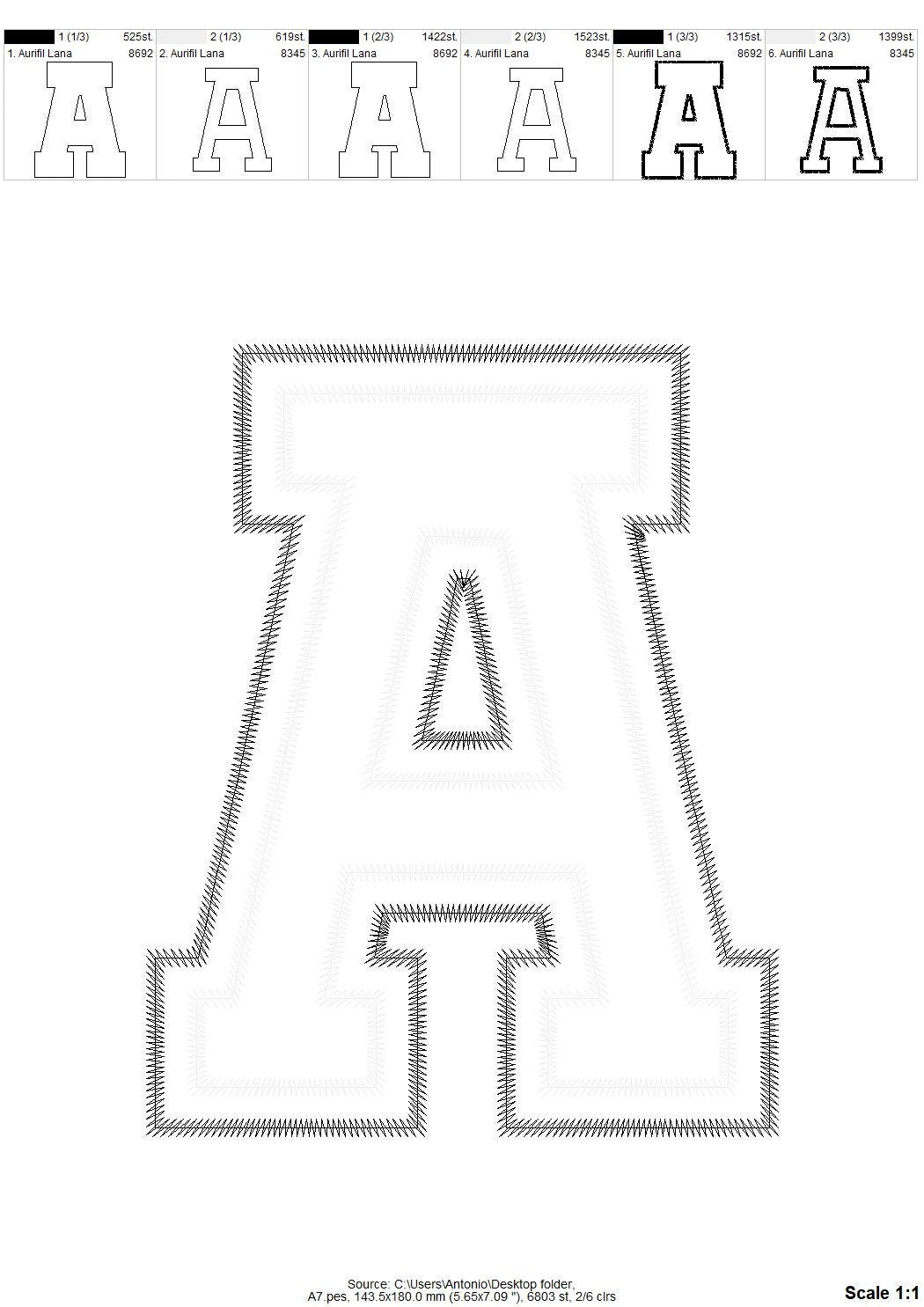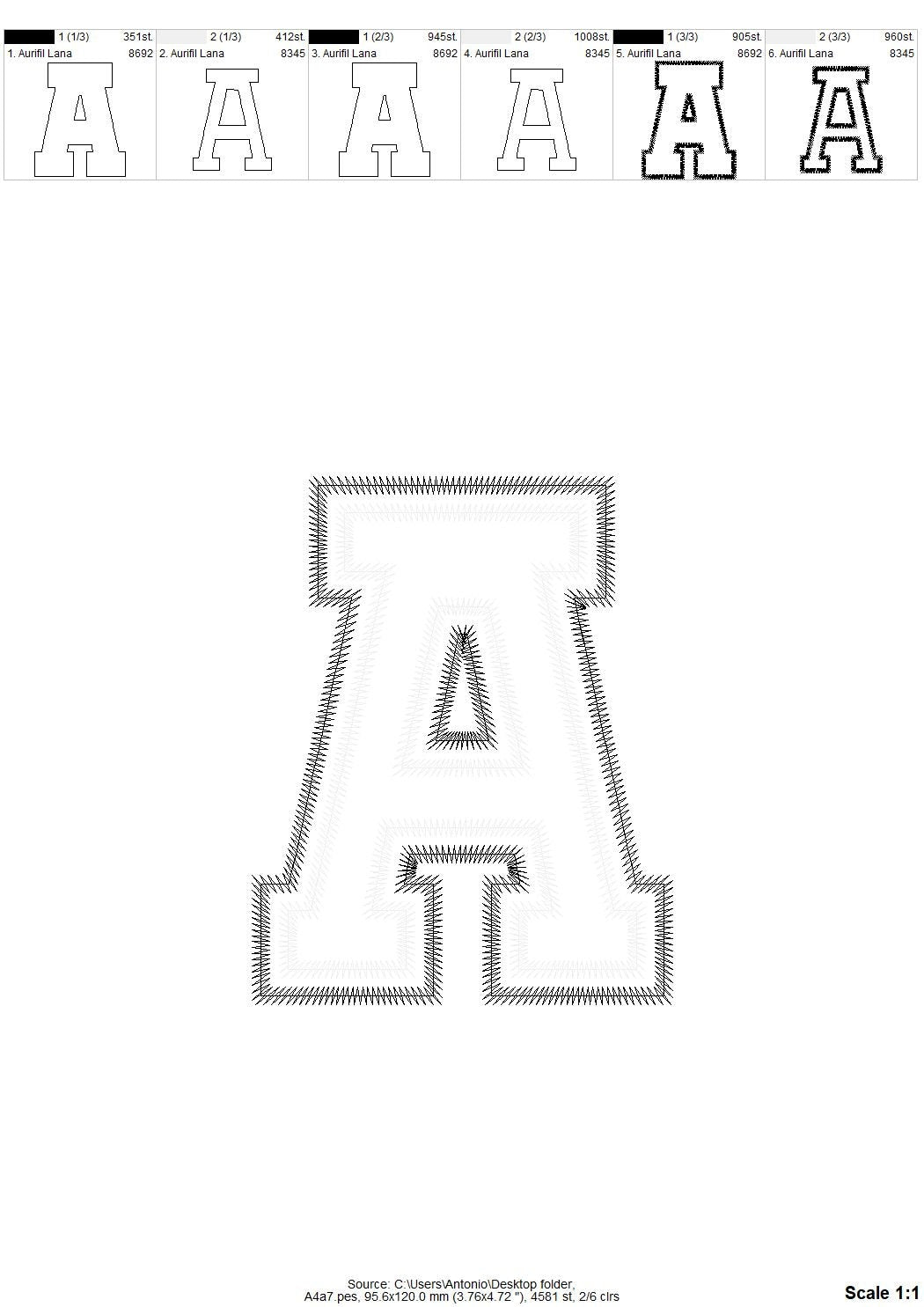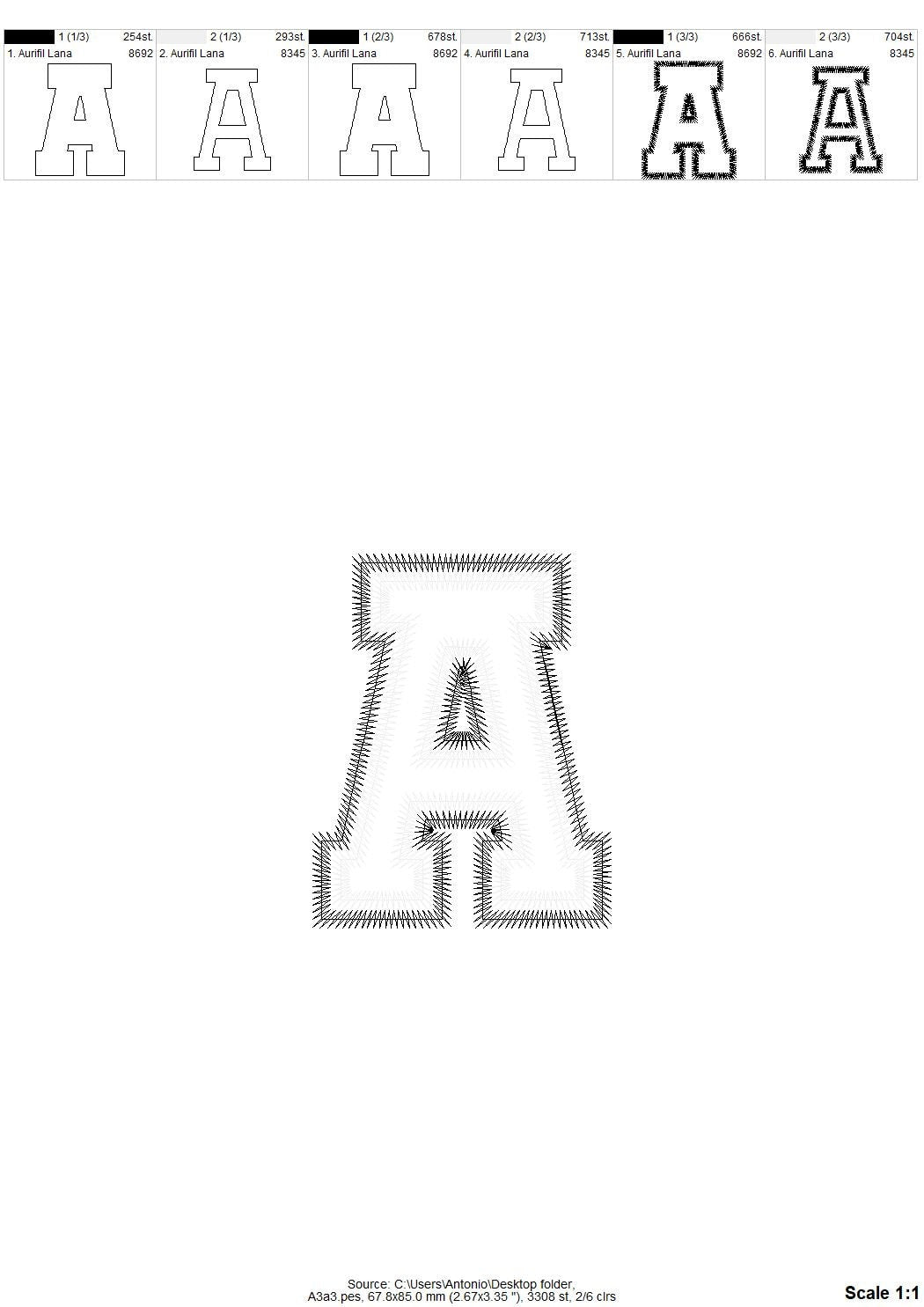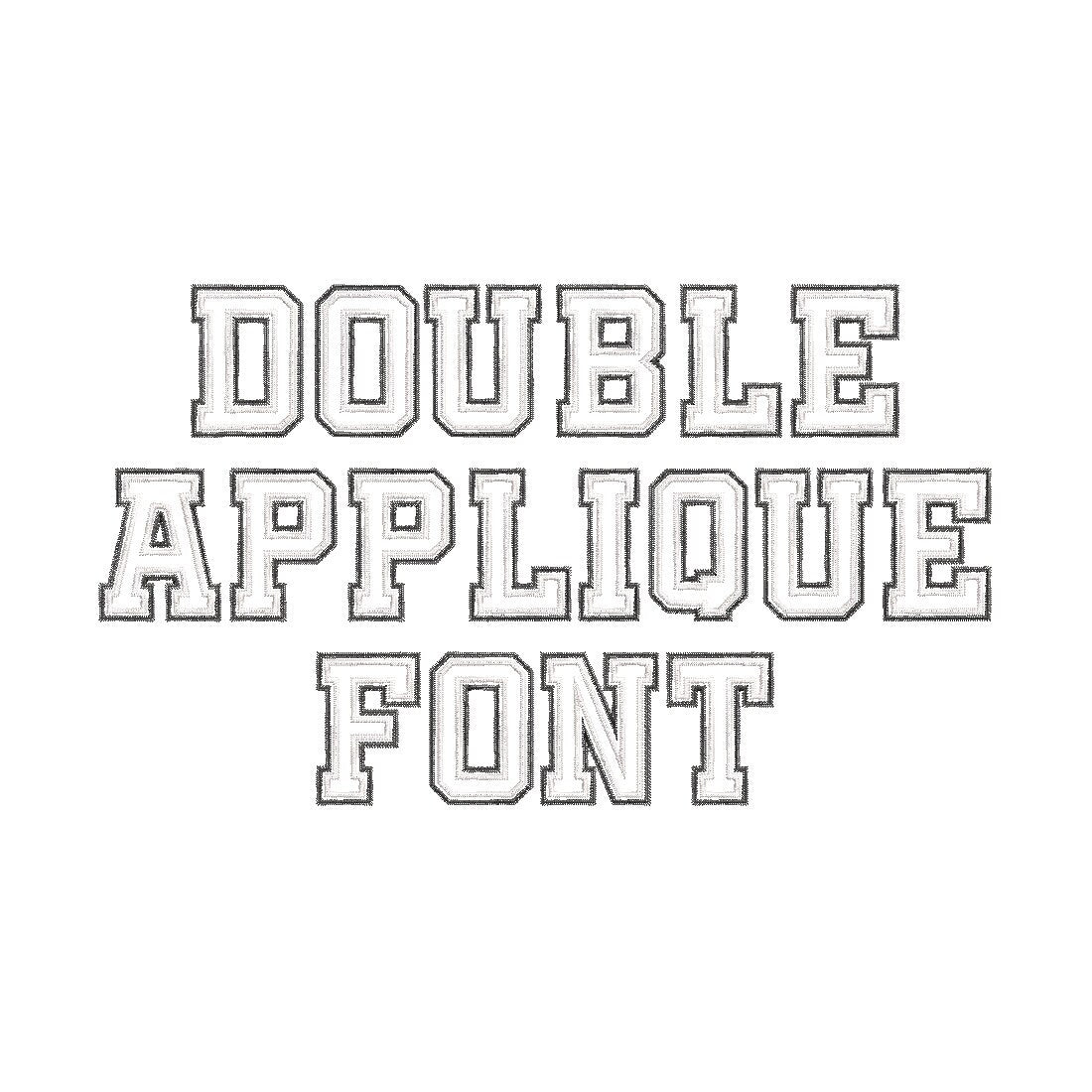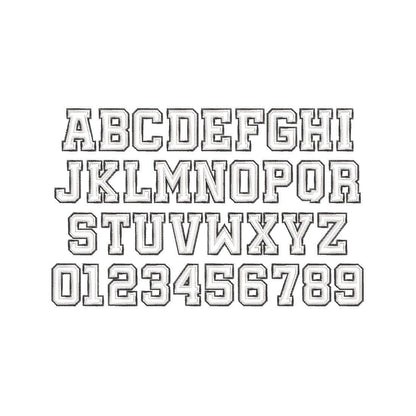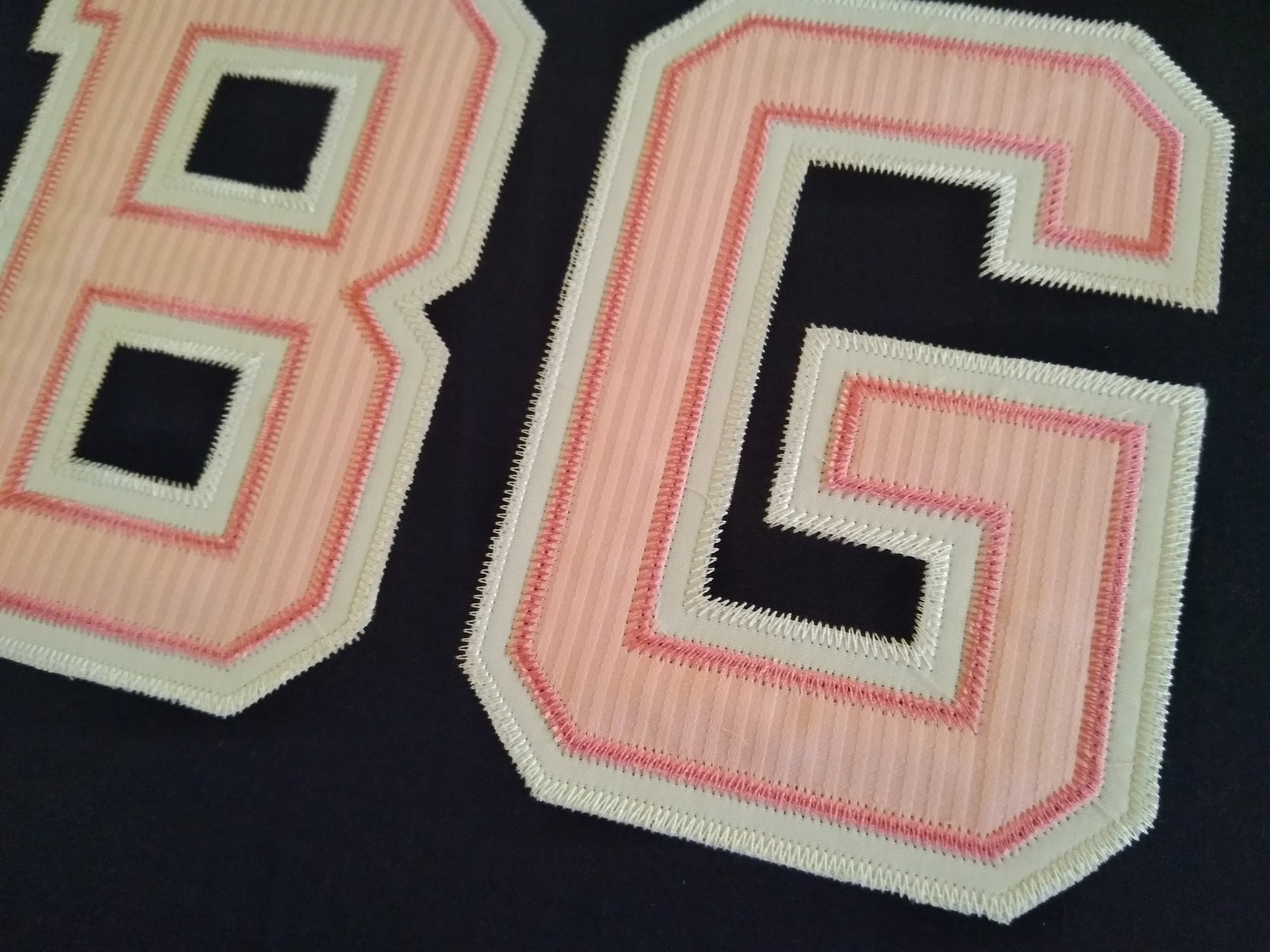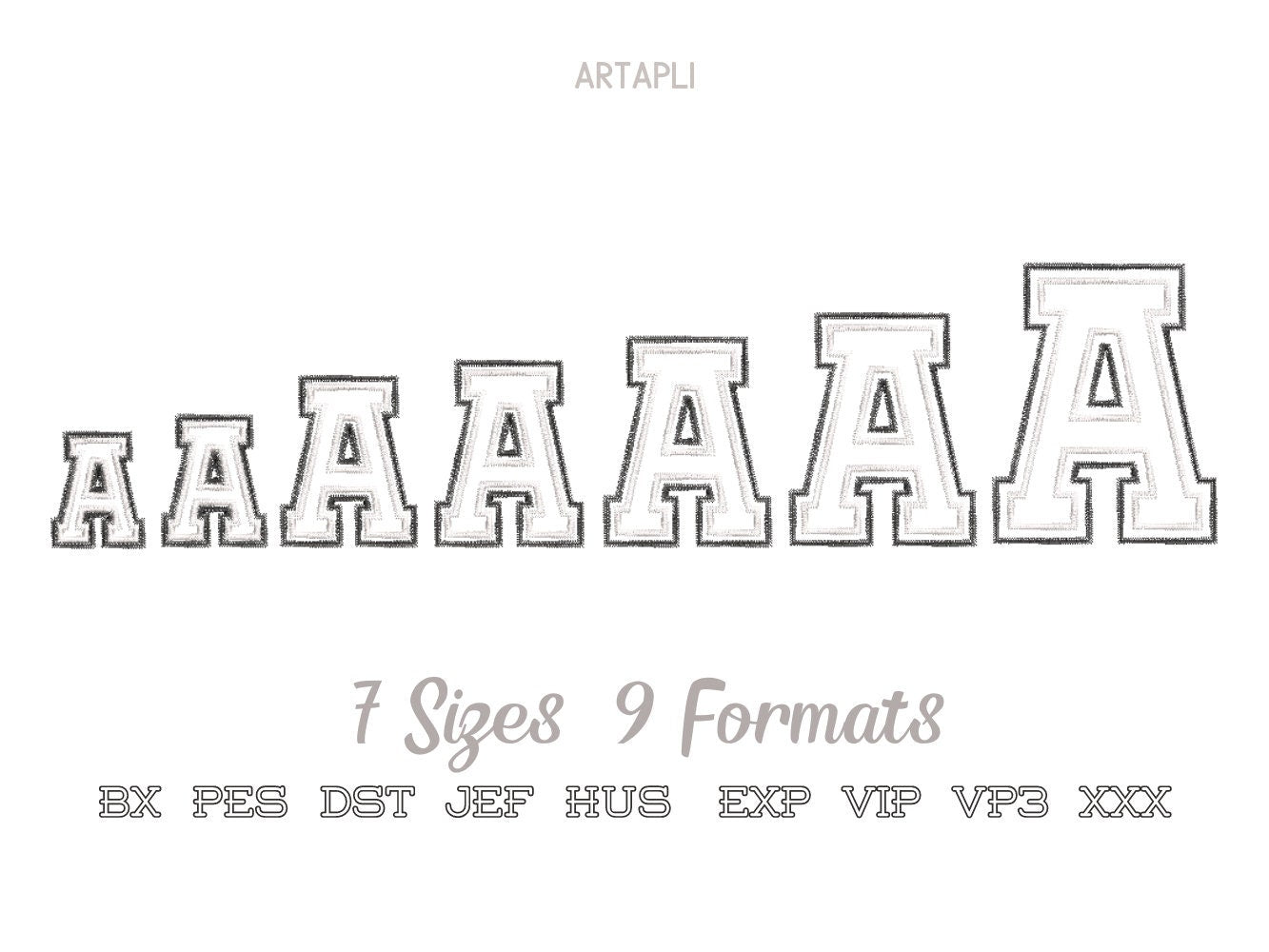
Or click to open the linkA large athletic font with two applique layers and a zigzag outline. Made for team shirts, jerseys, hoodies and letterman jackets.
Uppercase letters A to Z and numbers 0 to 9. Seven sizes: 3, 3.3, 4.3, 4.7, 5.3, 6 and 7 inches.